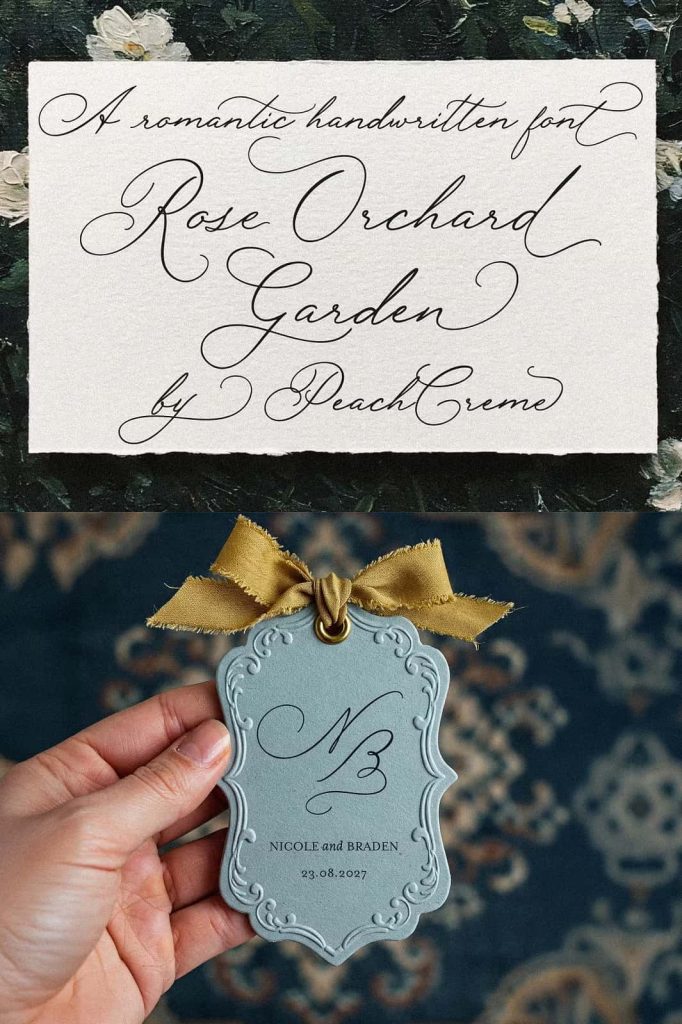
Rose Orchard Garden Font – A Romantic Handwritten Script with Classic Elegance
The Rose Orchard Garden Font is a beautifully romantic handwritten script created for designers who want to bring warmth, elegance, and expressive emotion into their work. Inspired by classic calligraphy and the charm of handwritten letters, this typeface blends traditional artistry with modern usability. Its long, flowing curves and intentional irregularities introduce an authentic handwritten feel that enhances your designs with personality, romance, and artistic finesse.
With its naturally graceful movement, Rose Orchard Garden carries a timeless charm reminiscent of ink on textured paper. Each stroke reflects the beauty of traditional penmanship, making the font feel personal, heartfelt, and delightfully human. Whether used in branding, invitations, packaging, or editorial design, this script font elevates your message with its soft elegance and expressive handwritten character.
A Script Font Inspired by Classic Calligraphy
Rose Orchard Garden draws strong influence from traditional calligraphy techniques, merging the structured flow of classic script writing with the spontaneity of hand-drawn artistry. The font’s graceful ascenders, flowing descenders, and subtle twists create a rhythmic, organic motion that enhances every composition.
Rather than striving for digital perfection, the font embraces long stems and slight irregularities, preserving the charm of real handwriting. These natural imperfections give the typeface warmth and depth, helping it stand apart from overly formal or mechanical script fonts.
Key Features of Rose Orchard Garden Font
1. Long, Flowing Curves That Enhance Romance
One of the most captivating qualities of the Rose Orchard Garden Font is its elegant flowing curves. These sweeping shapes add movement and emotion, making the typeface ideal for designs that need a romantic or nostalgic touch. Every curve feels intentional and expressive, bringing visual rhythm and enchanting detail to your typography.
2. Handwritten Irregularities for Authentic Character
Instead of presenting a flawless digital script, the font intentionally includes gentle irregularities that replicate natural handwriting. These subtle variations make the text feel more intimate and personal, giving a unique, handcrafted touch to invitations, notes, quotes, greeting cards, and branding applications.
3. A Classic Look with Modern Versatility
Although steeped in traditional calligraphic influence, Rose Orchard Garden adapts beautifully to contemporary design needs. Its refined strokes make it suitable for luxury branding, feminine logos, event stationery, packaging design, product labels, and editorial layouts. Designers can use it to enhance both minimalistic and ornate compositions, thanks to its balanced structure and expressive detail.
4. Perfect for Romantic and Emotional Design Projects
This handwritten script excels in projects that call for emotional depth and storytelling. Its romantic feel makes it an excellent choice for wedding invitations, bridal branding, love letters, anniversary designs, heartfelt quotes, and sentimental product packaging. Its expressive style invites readers to feel the message, not just read it.
5. Beautiful on Digital and Print Layouts
Rose Orchard Garden maintains clarity and beauty across both digital screens and printed materials. Whether displayed as a large feature script or woven into a layered layout, the font keeps its handcrafted nuance and graceful structure. Its softness and readability make it ideal for website headers, social media graphics, printed stationery, and artistic posters.
Why Designers Love Rose Orchard Garden
Designers choose the Rose Orchard Garden Font for its balance of expressive romance and natural handwritten charm. Its calligraphic roots give it classic elegance, while its hand-drawn imperfections inject personality and authenticity. This makes the font incredibly versatile, fitting seamlessly into branding systems that aim to feel emotional, artistic, and refined.
Whether you want to add sophistication to a brand logo, craft an intimate personal message, or enhance a creative layout with a romantic script, Rose Orchard Garden delivers artistic emotion with timeless beauty.
Conclusion: Add Romantic Handcrafted Elegance to Your Designs
The Rose Orchard Garden Font is a romantic handwritten script that blends flowing calligraphic curves with real handwritten charm. Its expressive strokes and delicate irregularities create a heartfelt and classic aesthetic that lifts any project. From wedding stationery to luxury branding and artistic compositions, this typeface brings emotion, elegance, and authenticity to every design.